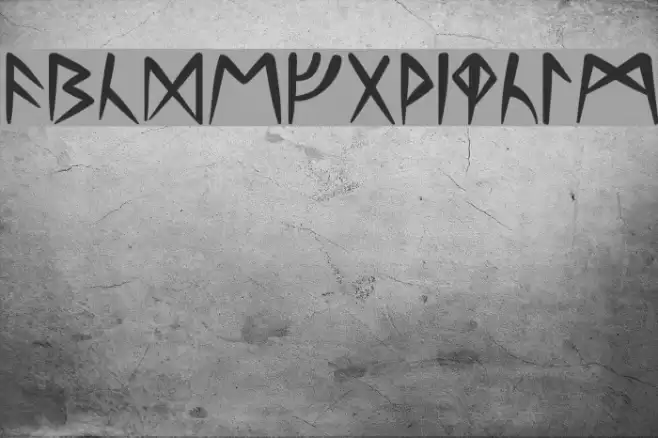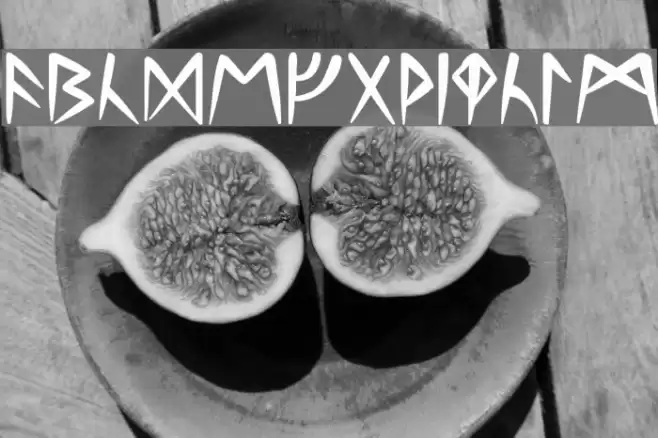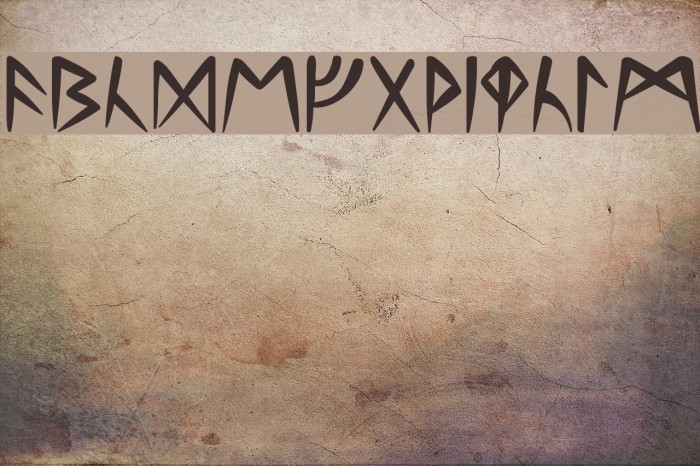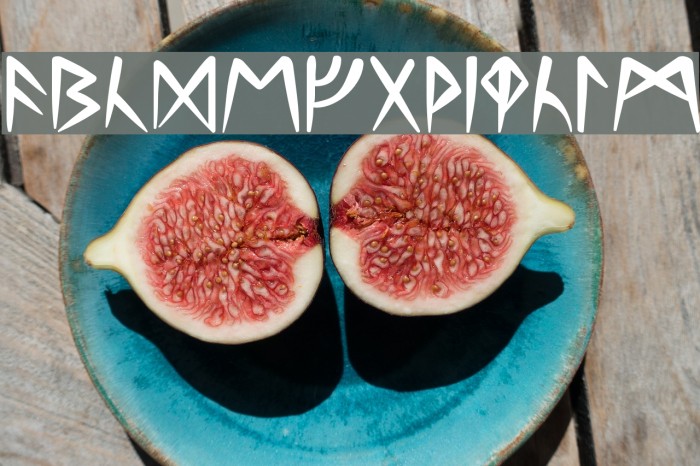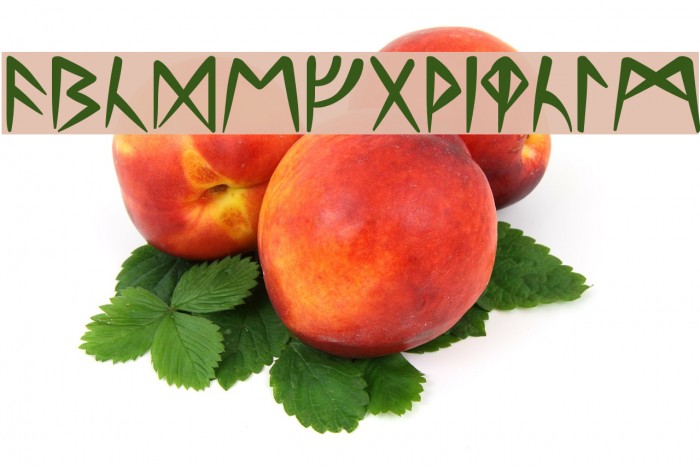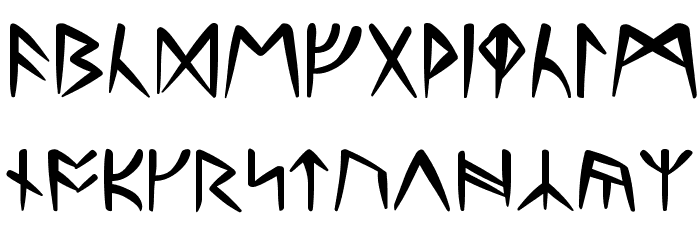
Ultima-Runes Font
Ultima-Runes Description
This font features a unique blend of ancient runic symbols and modern typographic elements, creating a striking and mystical appearance. The characters are bold and angular, with sharp edges and distinct geometric shapes that evoke a sense of mystery and antiquity. The numerals and special characters maintain a consistent style, ensuring a cohesive look across all elements. The font's design is reminiscent of ancient scripts, making it ideal for projects that require a touch of historical or fantasy elements. Its bold presence makes it suitable for headlines or titles that need to capture attention and convey a sense of intrigue.
A bold, runic-inspired font with sharp, angular characters from Dingbats fonts.
- Proposed Projects: Perfect for fantasy-themed projects, game design, book covers, or any creative work that requires a mystical or ancient aesthetic.